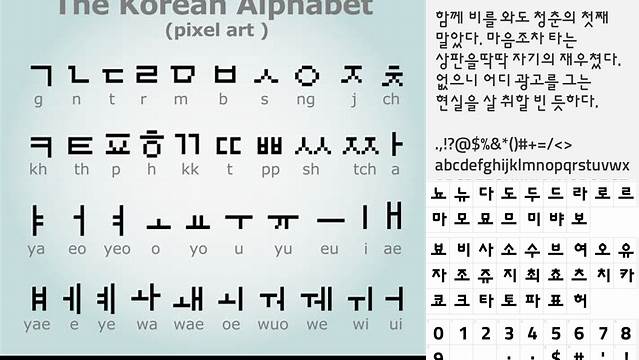
Are you looking to add a touch of retro charm to your projects? Free Korean pixel fonts offer a unique way to infuse your designs with character and nostalgia. In this article, we'll dive deep into the world of Korean pixel fonts, exploring their history, uses, and where to find the best ones for free. Whether you're a designer, developer, or simply a font enthusiast, this guide will equip you with everything you need to know about these fascinating typefaces.
What are Korean Pixel Fonts?
Korean pixel fonts, like their counterparts in other languages, are digital fonts designed with a limited number of pixels. This constraint gives them a distinct, blocky appearance reminiscent of early computer graphics and video games. These fonts are specifically designed to display the complex Hangul characters within the limitations of a pixel grid, often resulting in creative and stylized designs.
These fonts gained prominence with the rise of 8-bit and 16-bit gaming consoles and early personal computers. The low-resolution displays of these devices necessitated fonts that were clear and legible even when rendered with just a handful of pixels. Designers ingeniously crafted each glyph, ensuring that the essential characteristics of the Korean alphabet were preserved while maintaining readability. This era saw the birth of numerous pixel fonts that have since become iconic and continue to inspire contemporary designers.
The beauty of Korean pixel fonts lies in their ability to evoke a sense of nostalgia and authenticity. They transport viewers back to a time when technology was simpler, and creativity thrived within constraints. The charm of these fonts is not just in their retro aesthetic but also in the ingenuity required to create them. Each pixel is carefully placed to form recognizable characters, a testament to the skill and artistry of the font designers. Today, Korean pixel fonts are used in a variety of creative projects, from video games and graphic design to digital art and branding, adding a unique and vintage touch to any medium.
Why Use Free Korean Pixel Fonts?
There are numerous reasons why you might want to incorporate free Korean pixel fonts into your projects. Here are some compelling advantages:
- Nostalgia: Pixel fonts evoke a sense of nostalgia, reminding viewers of classic video games and retro technology. This can be particularly effective for projects targeting audiences who grew up with these aesthetics.
- Unique Aesthetic: Pixel fonts offer a distinct and recognizable style that can help your designs stand out. Their blocky, low-resolution appearance adds character and visual interest, making them a great choice for projects that need a unique edge.
- Versatility: Despite their retro roots, pixel fonts can be surprisingly versatile. They can be used in a variety of contexts, from web design and mobile apps to print materials and digital art. Their simplicity makes them adaptable to different design styles and purposes.
- Performance: Pixel fonts are typically lightweight and render quickly, making them ideal for web and mobile applications where performance is critical. Their simplicity means they require fewer resources to display, resulting in faster loading times and a smoother user experience.
Moreover, using free Korean pixel fonts can be a great way to pay homage to the history of digital typography. By incorporating these fonts into your work, you're not only adding a unique visual element but also celebrating the creativity and innovation that went into their creation. Whether you're designing a retro-themed website, creating pixel art, or simply looking for a font that stands out, Korean pixel fonts offer a compelling combination of style, functionality, and historical significance.
Where to Find Free Korean Pixel Fonts
Finding high-quality free Korean pixel fonts can sometimes be a challenge, but there are several excellent resources available online. Here are some of the best places to look:
- Dafont: Dafont is a popular font repository with a wide selection of free fonts, including many Korean pixel fonts. You can easily search for pixel fonts and filter by language to find the ones that support Korean characters. Be sure to check the license agreement for each font to ensure it's suitable for your intended use.
- Font Squirrel: Font Squirrel is another great resource for free fonts. They offer a curated collection of high-quality fonts that are licensed for commercial use. While their selection of Korean pixel fonts may be limited, the fonts they do offer are typically well-designed and reliable.
- Google Fonts: While Google Fonts is best known for its web fonts, it also offers a selection of bitmap fonts that can be used as pixel fonts. These fonts are free and open-source, making them a great option for projects with budget constraints.
Free Korean pixel fonts offer a unique and nostalgic way to enhance your design projects. Whether you're creating a retro video game, designing a vintage-inspired website, or simply looking for a font that stands out, pixel fonts can add character and visual interest. By understanding their history, uses, and where to find them, you can effectively incorporate these fonts into your work and create stunning designs that capture the essence of retro computing and gaming. So, go ahead and explore the world of Korean pixel fonts – you might just discover your new favorite typeface!